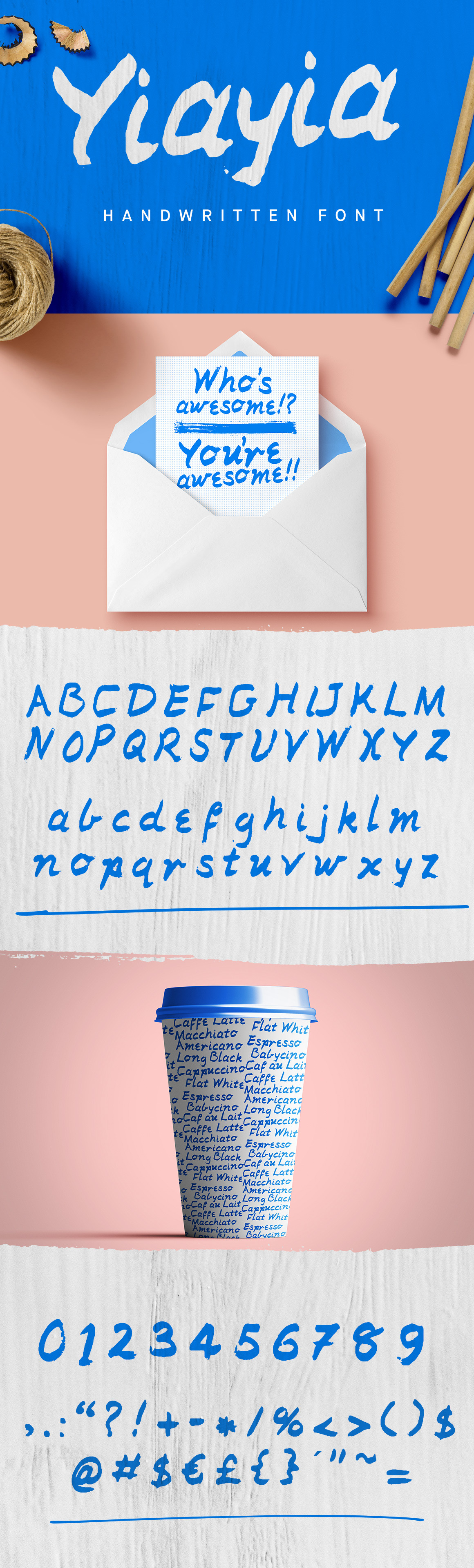
Yiayia Handwritten Font
Yiayia is a handmade script typeface with a rugged feel, ready for your next design project.
- Character Set A-Z upper case. lower case